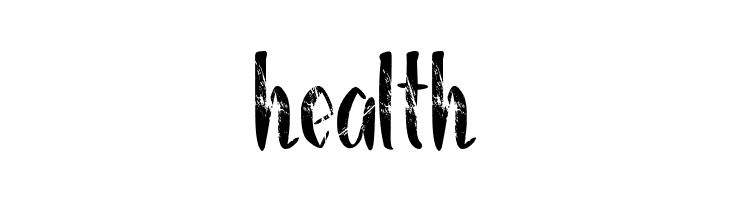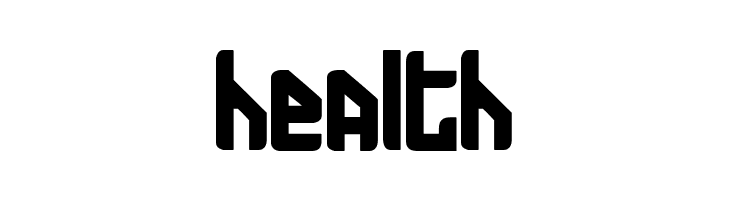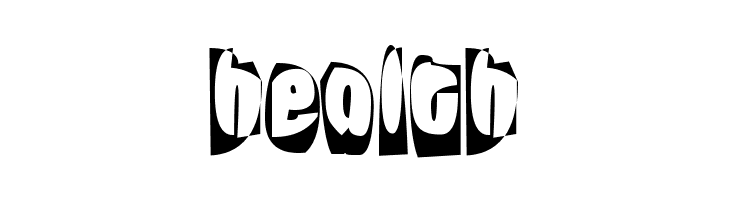
A distressed, gothic-inspired font with a grunge aesthetic and varied stroke thickness.
A bold, expressive handwritten font with dynamic strokes.
A bold, playful, 3D-effect font with a decorative style.
A playful, hand-drawn font with irregular, wavy lines and a whimsical style.
A bold, graffiti-inspired font with rough, brush-like strokes.
A bold, geometric font with a modern and robust design.
A playful, hand-drawn outlined font with a whimsical and casual style.